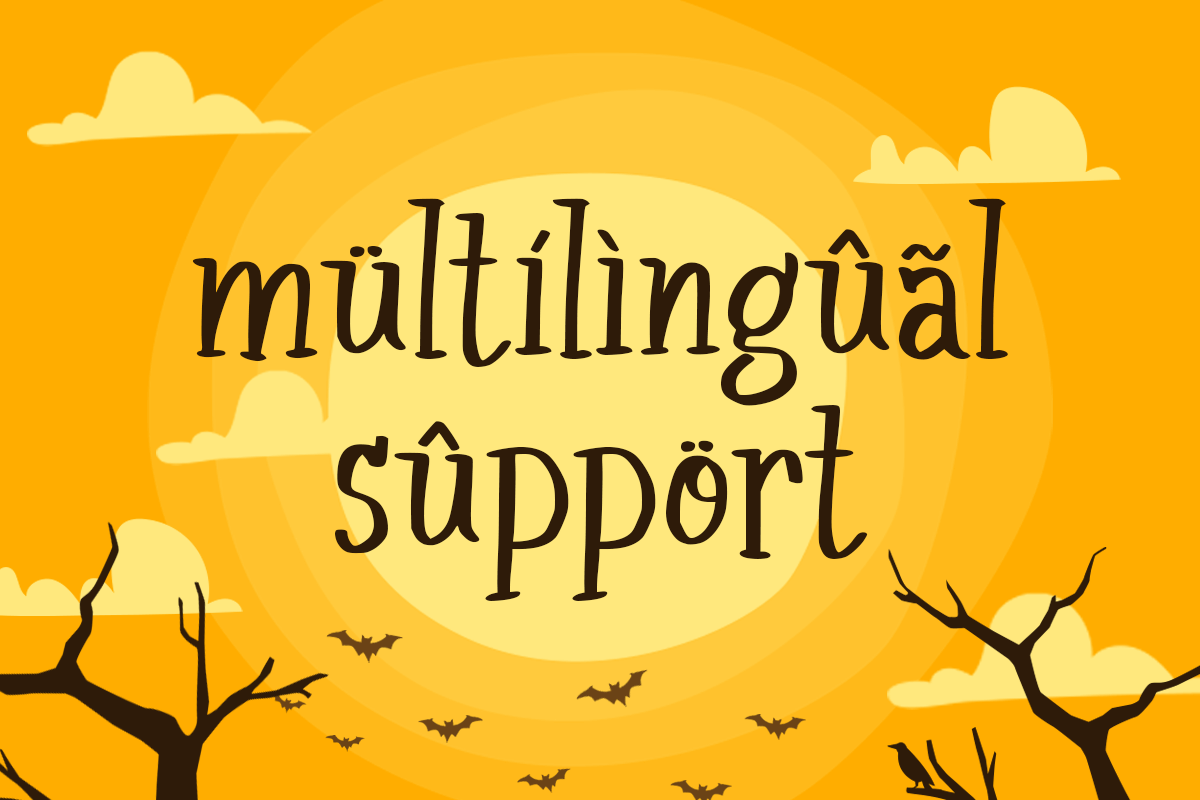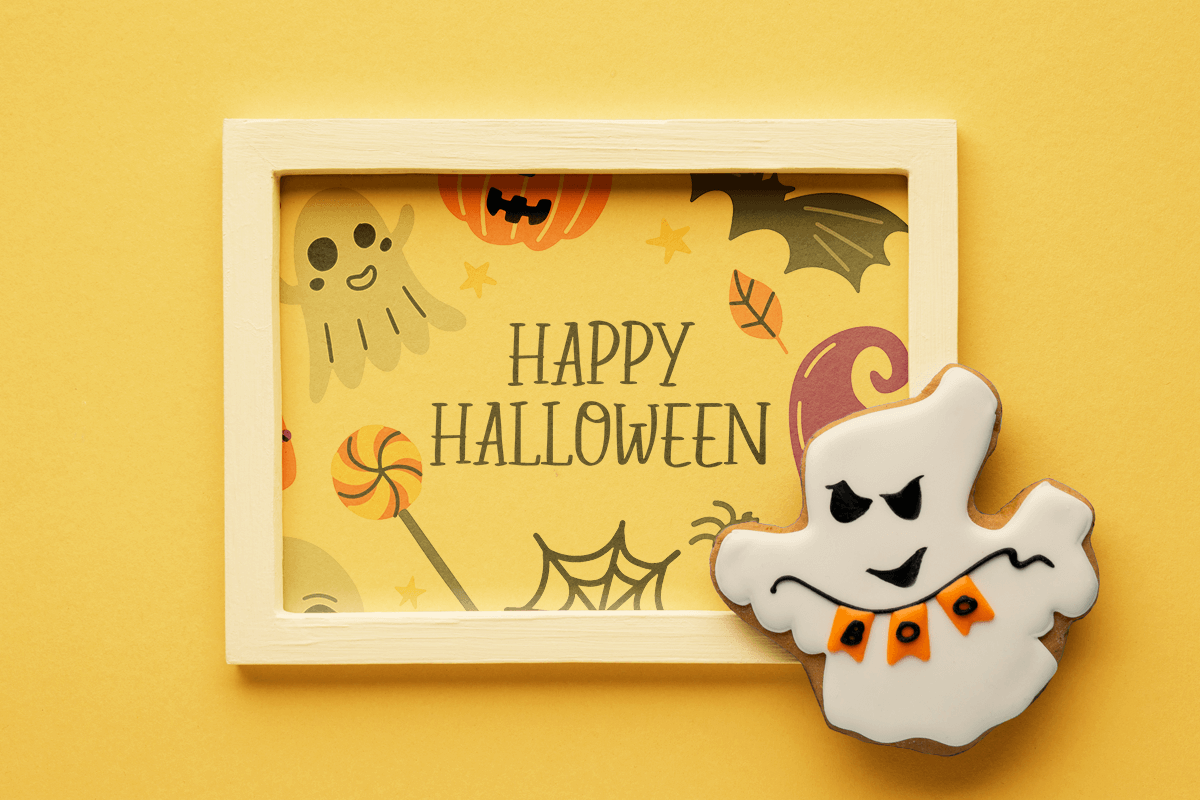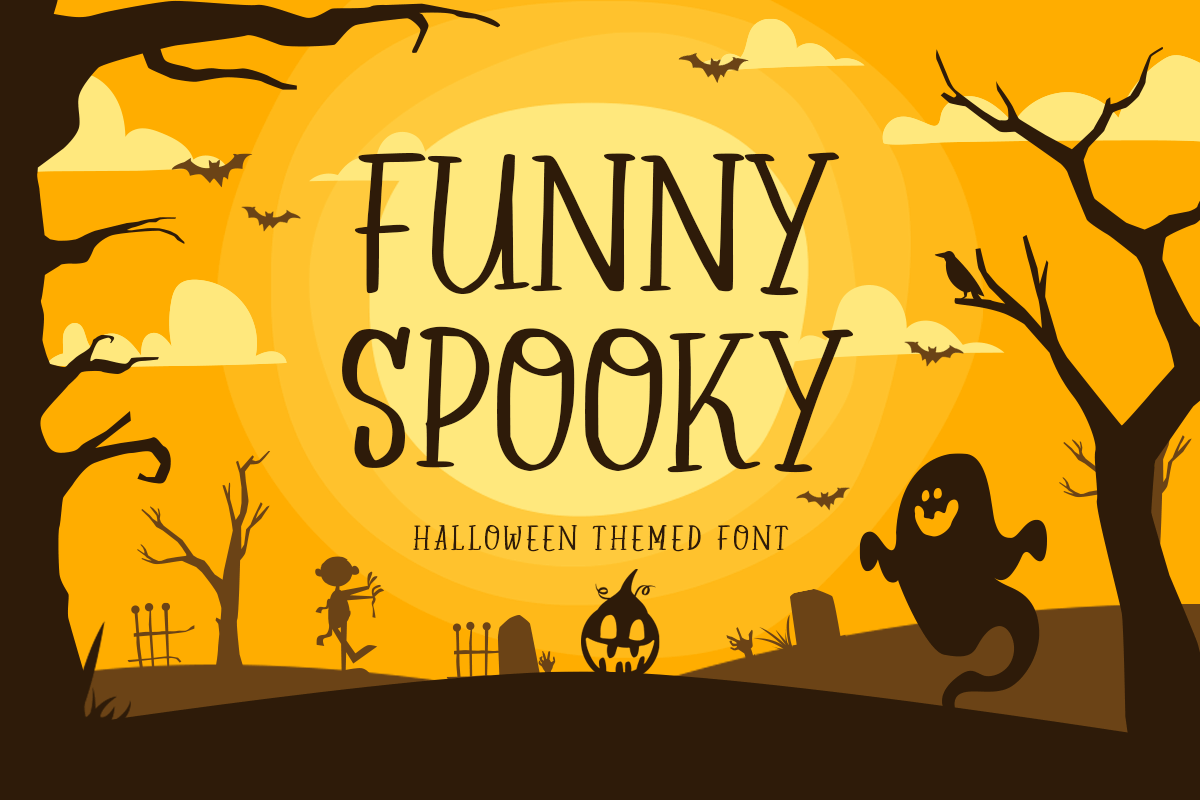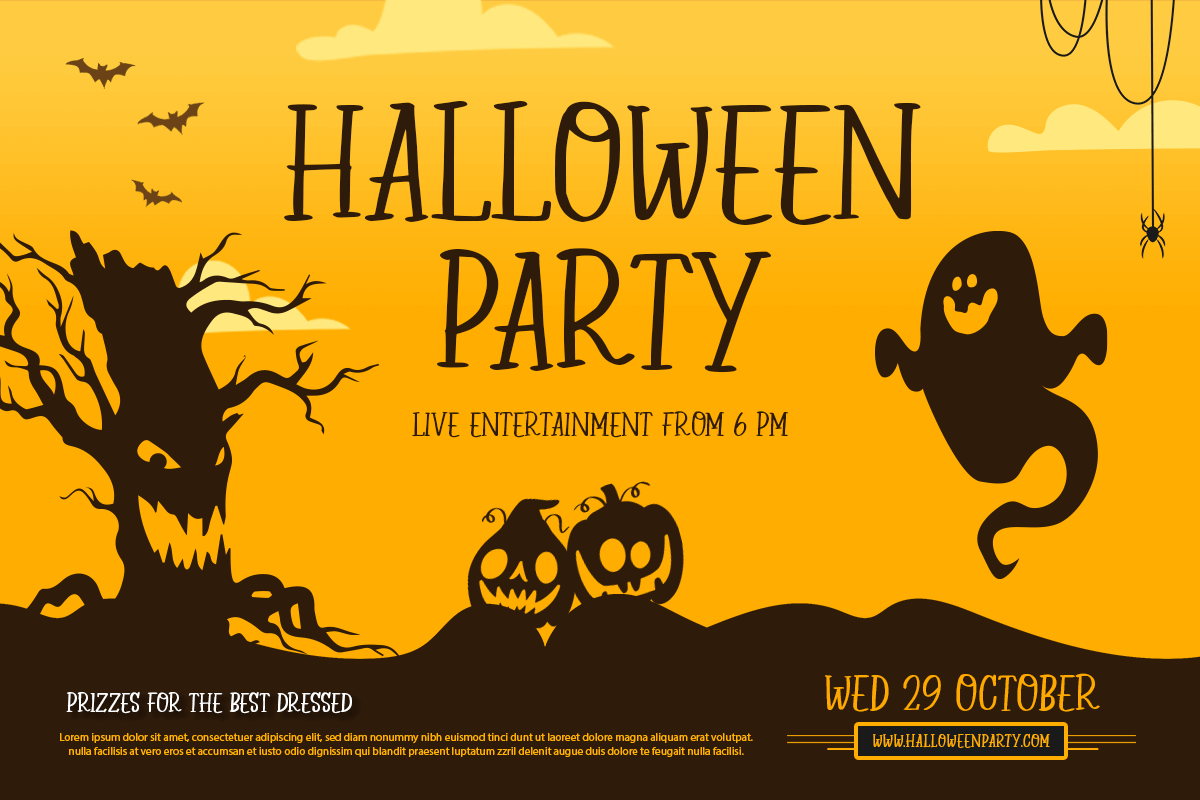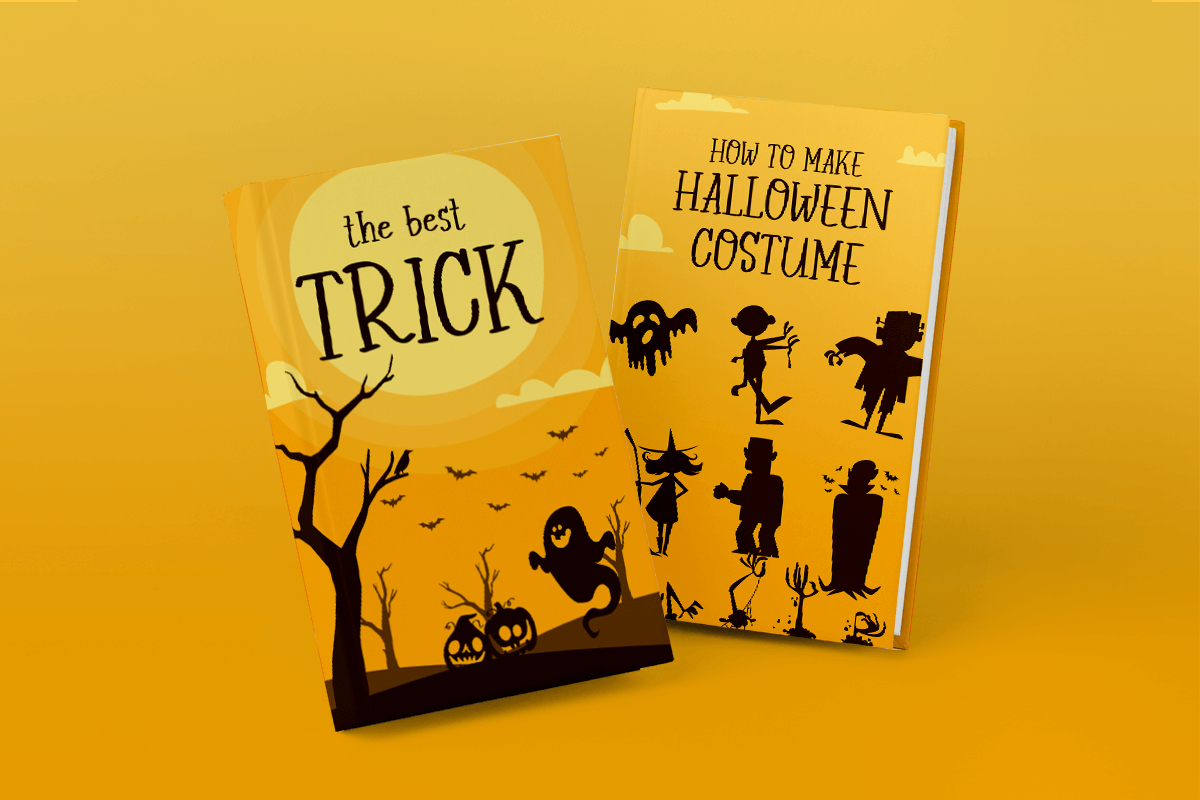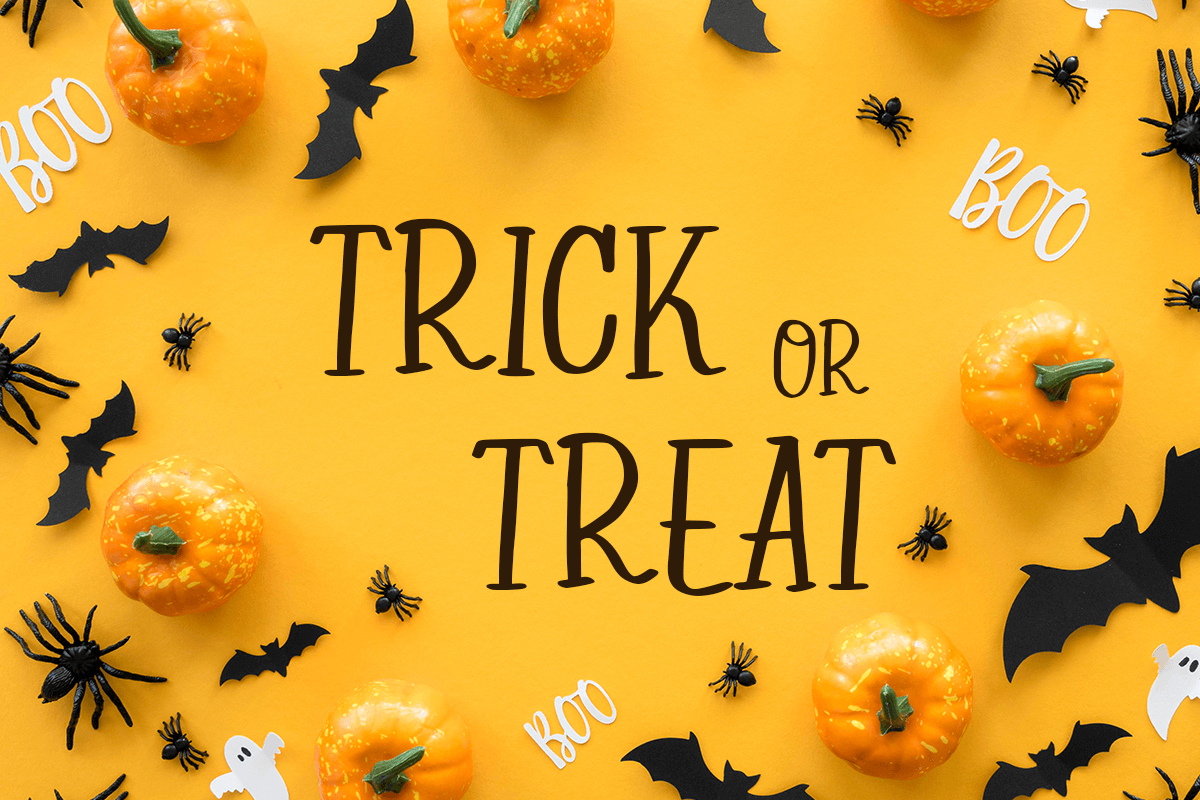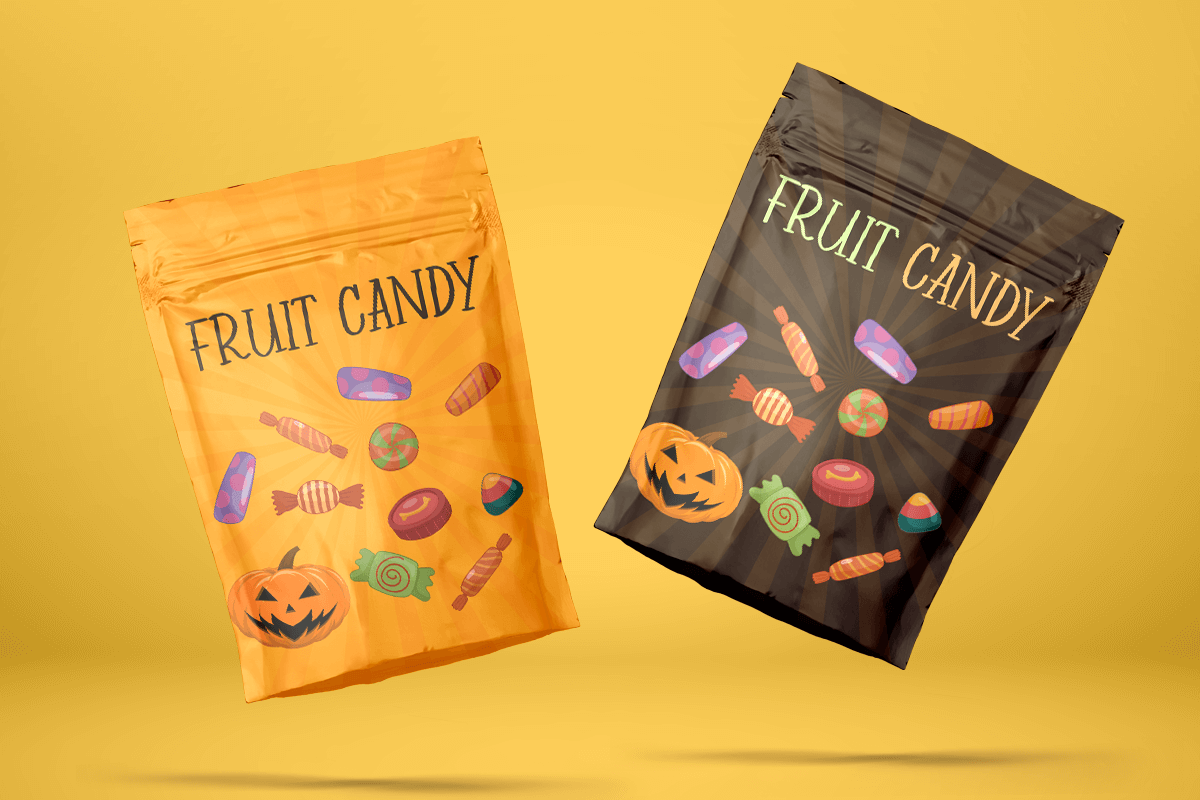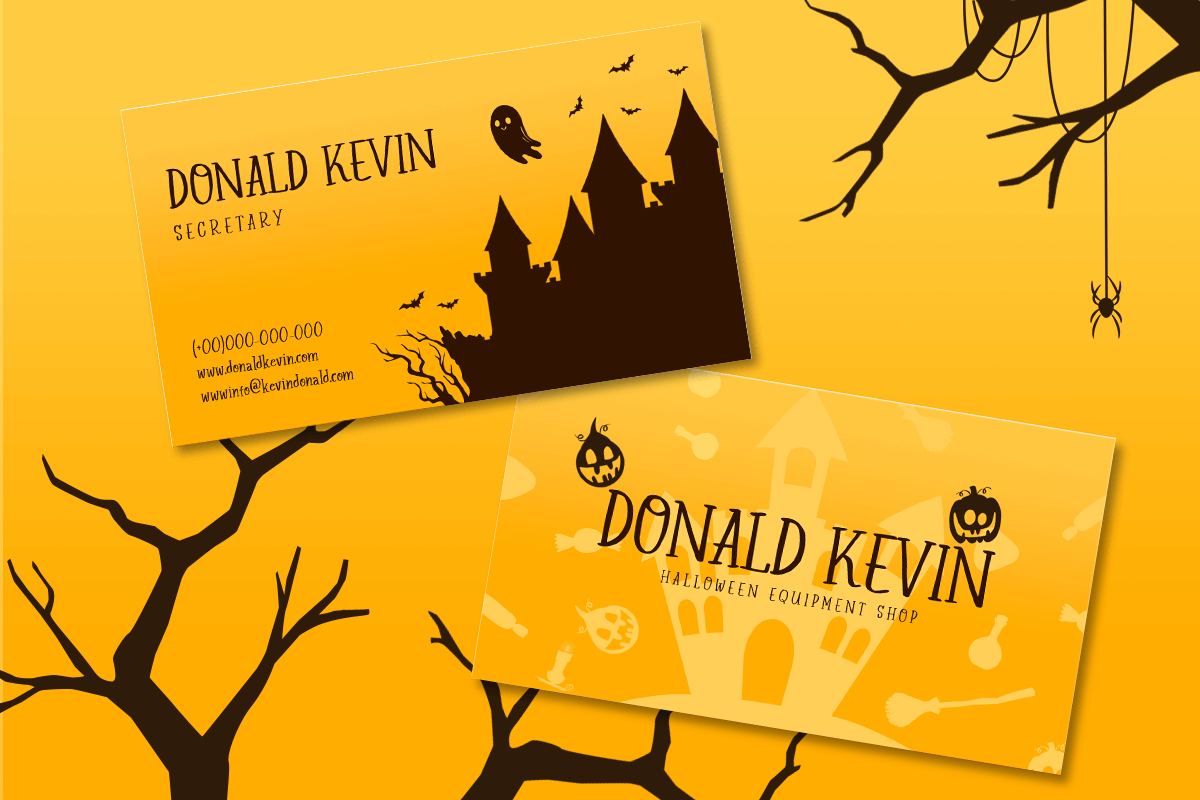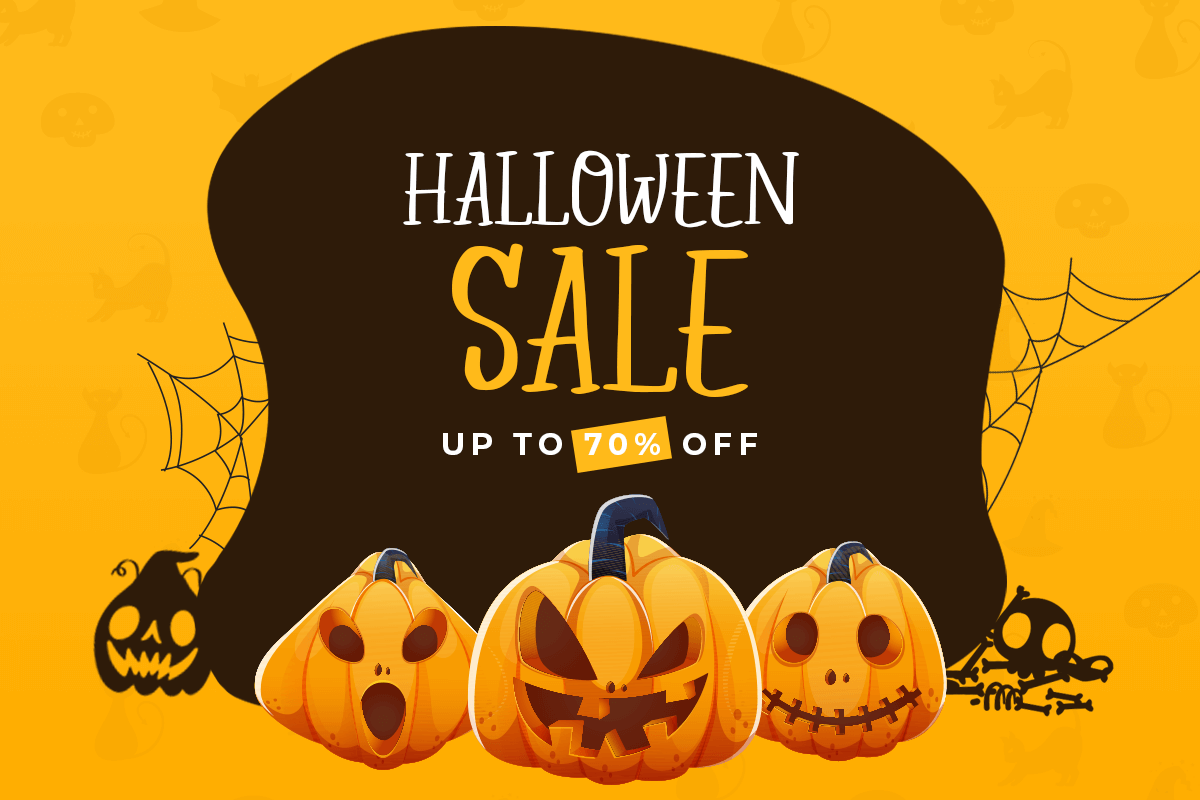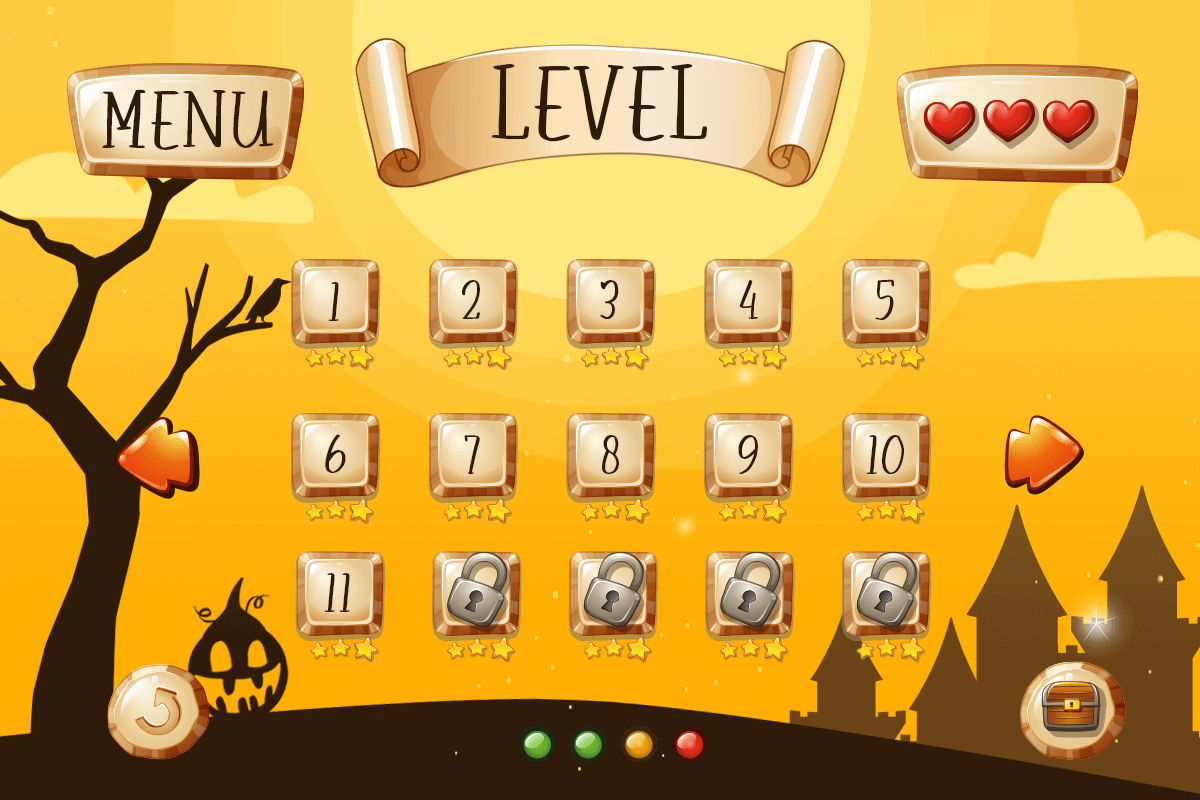
Funny Spooky
-Halloween Themed Font
Funny Spooky
Funny Spooky is A Halloween Themed Font with cute style and so charming. This font specially crafted for your branding, quotes design projects or cute logo, unique, modern for any designs such as print, merchandise, and so many more with easy to use but unique results are so playful.
Enjoy to Design any your needs with cute and playful feel.